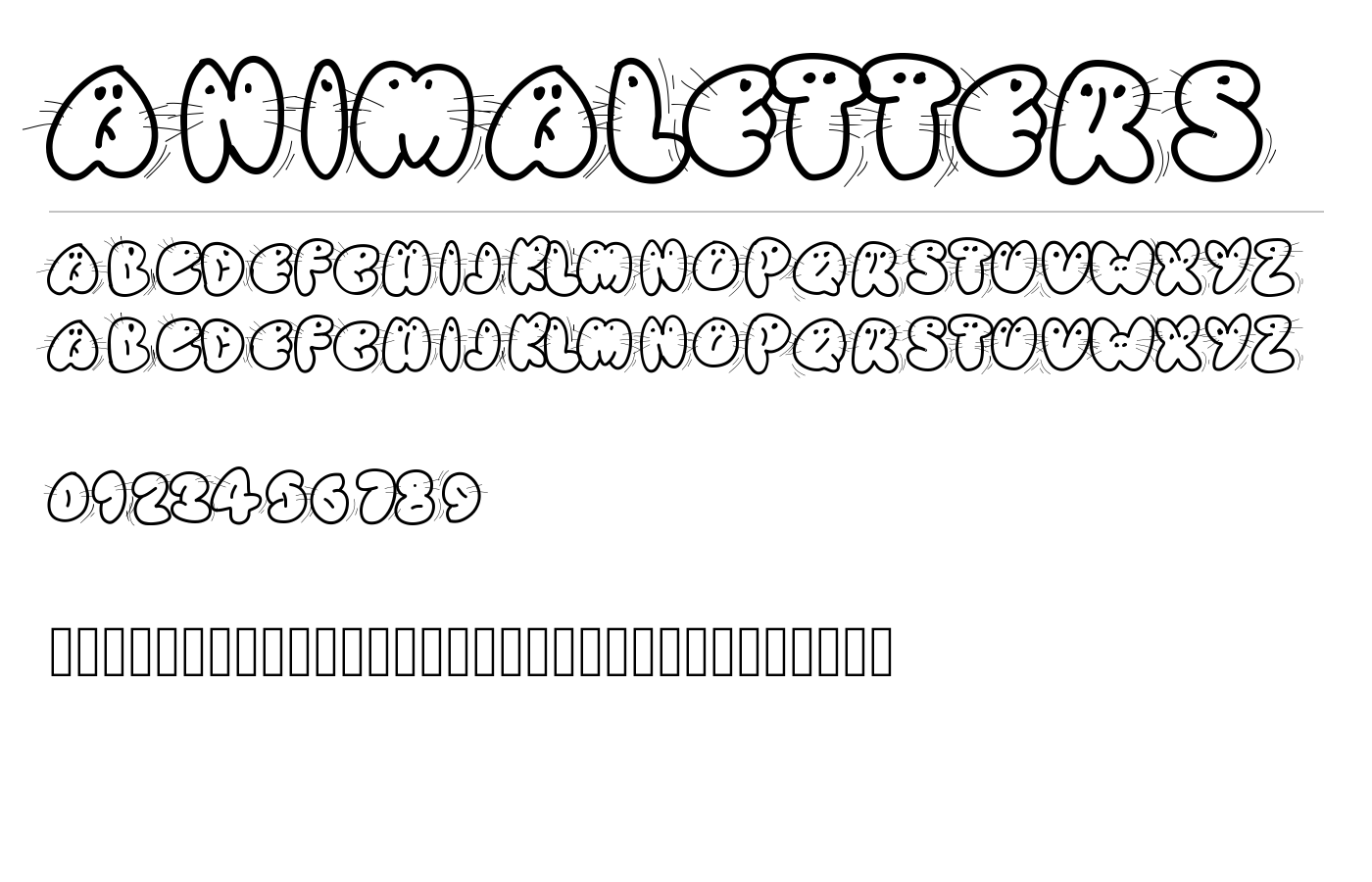
Animaletters is a playful, hand-drawn display font featuring rounded, bubbly letterforms with whimsical animal-like faces and subtle whisker details. Its chunky, irregular shapes give it a fun, child-friendly personality, making it perfect for kids’ designs, playful branding, and creative projects that want a lighthearted and imaginative vibe. This font works best in headlines, logos, or packaging where a quirky and engaging style is desired.
Animaletters Font
About Animaletters Font